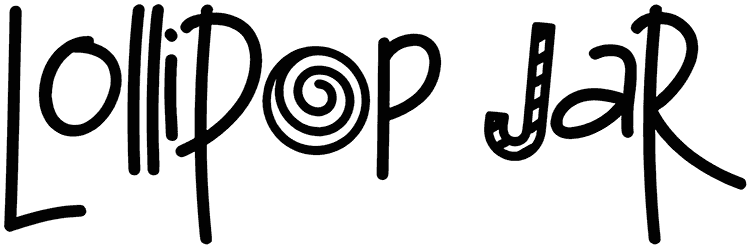
Lollipop Jar Font
When you set a playful and cute letterform on your project’s words, the final show will be fun and memorable, and this handwritten font is able to do it.
Numbers and punctuation marks of this doodle font are not available, but the Lollipop Jar font will work well to give an interesting visual to your layout and show off your creative skills. Use it for your new kids’ party poster, and be cool.